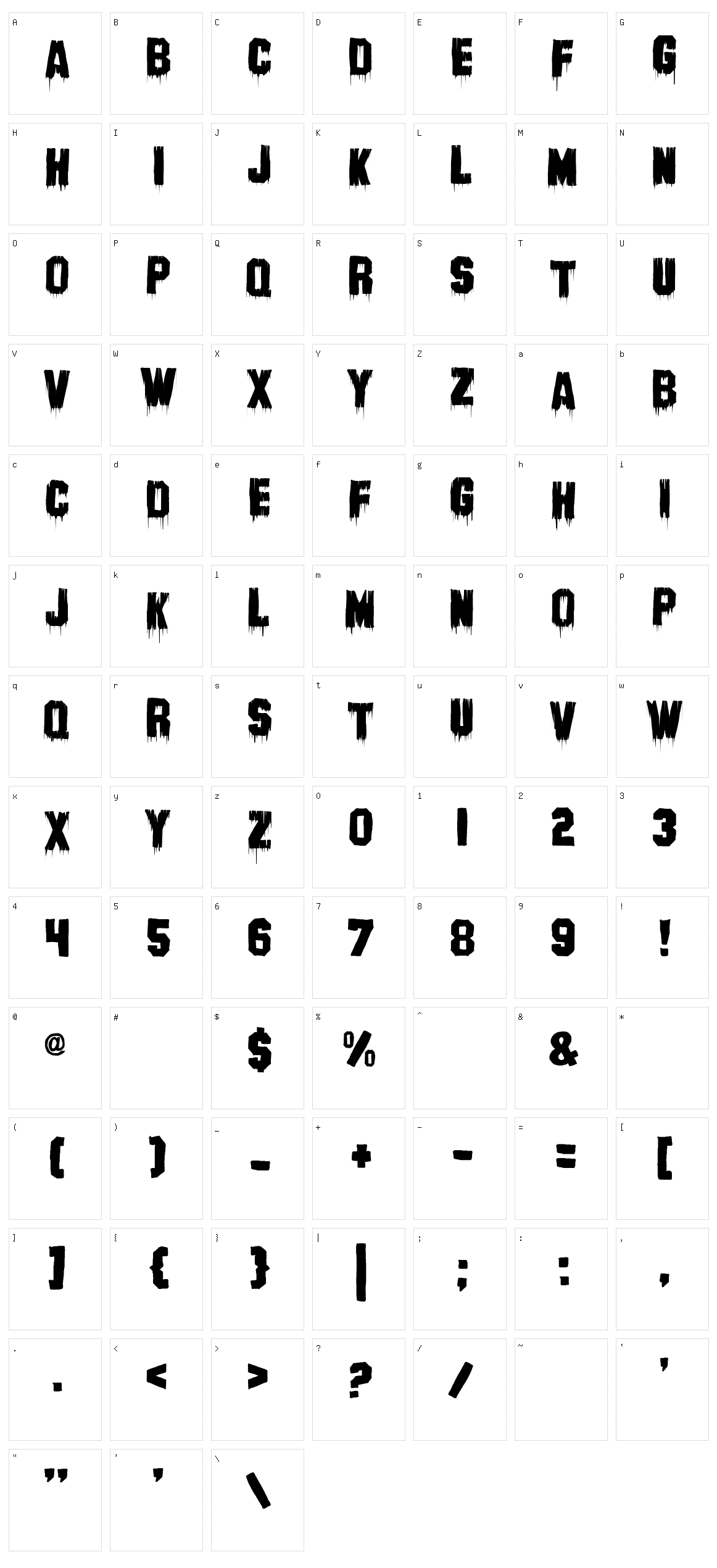
-Banhart-
By Eric Wiryanata. October 2008.
The name taken after Devendra Banhart
Note#2: This typeface is ideal for logos and general design.
It isn't very suitable to be used with word-processors as it lacks some symbols and letters.